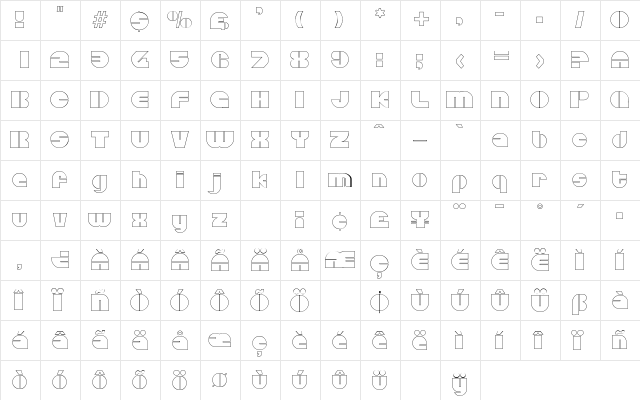
Disandat Outline SF Regular
Design Context for Disandat Outline SF Typeface
Disandat Outline SF brings ornamental detail and strong personality to headlines and identities, where visual impact matters more than quiet functionality.
Font Pairing: Pair with a clean neutral sans-serif for body copy to let Disandat Outline SF's character lead without overwhelming the composition.
Pro Tip: Use Disandat Outline SF exclusively at display sizes — it was designed to be seen, not read at length. Let a neutral companion handle body copy.